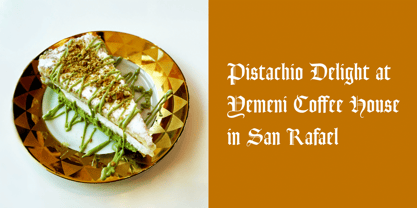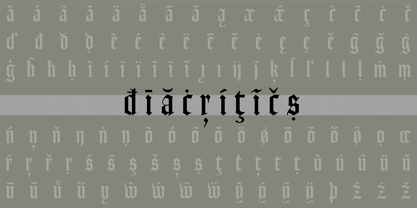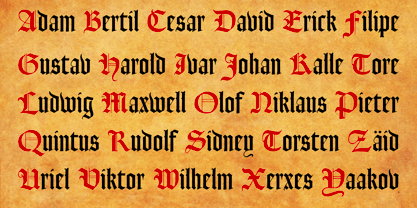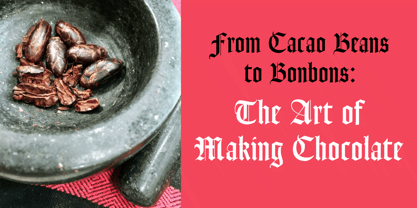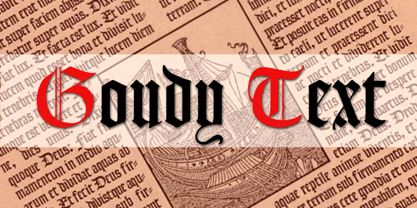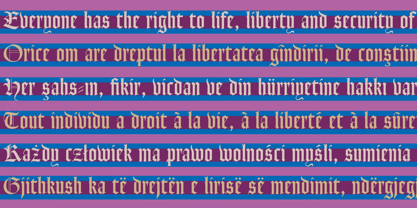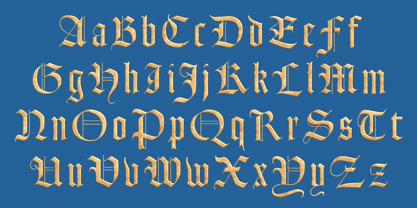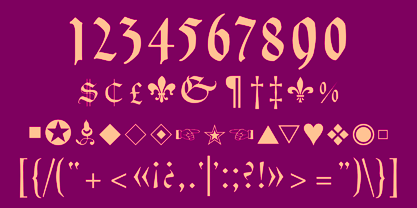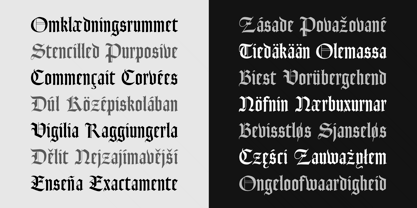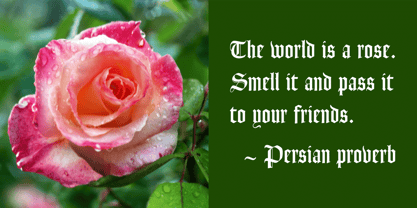
Goudy Text CT
by CastleType
The Goudy Text CT Font Family was designed by Jason Castle and published by CastleType. Goudy Text CT contains 1 styles. More about this family
This version of Goudy Text is based on drawings from which Frederic Goudy based his Goudy Text typeface. However, there is a big difference between his original drawings (in The Alphabet and Elements of Lettering) and the subsequent metal type version, and my version maintains the greater warmth (and irregularities) of the original drawings. Goudy's Lombardy caps look especially nice when used as initial capitals with Goudy Text.
Designers: Jason Castle
Foundry: CastleType